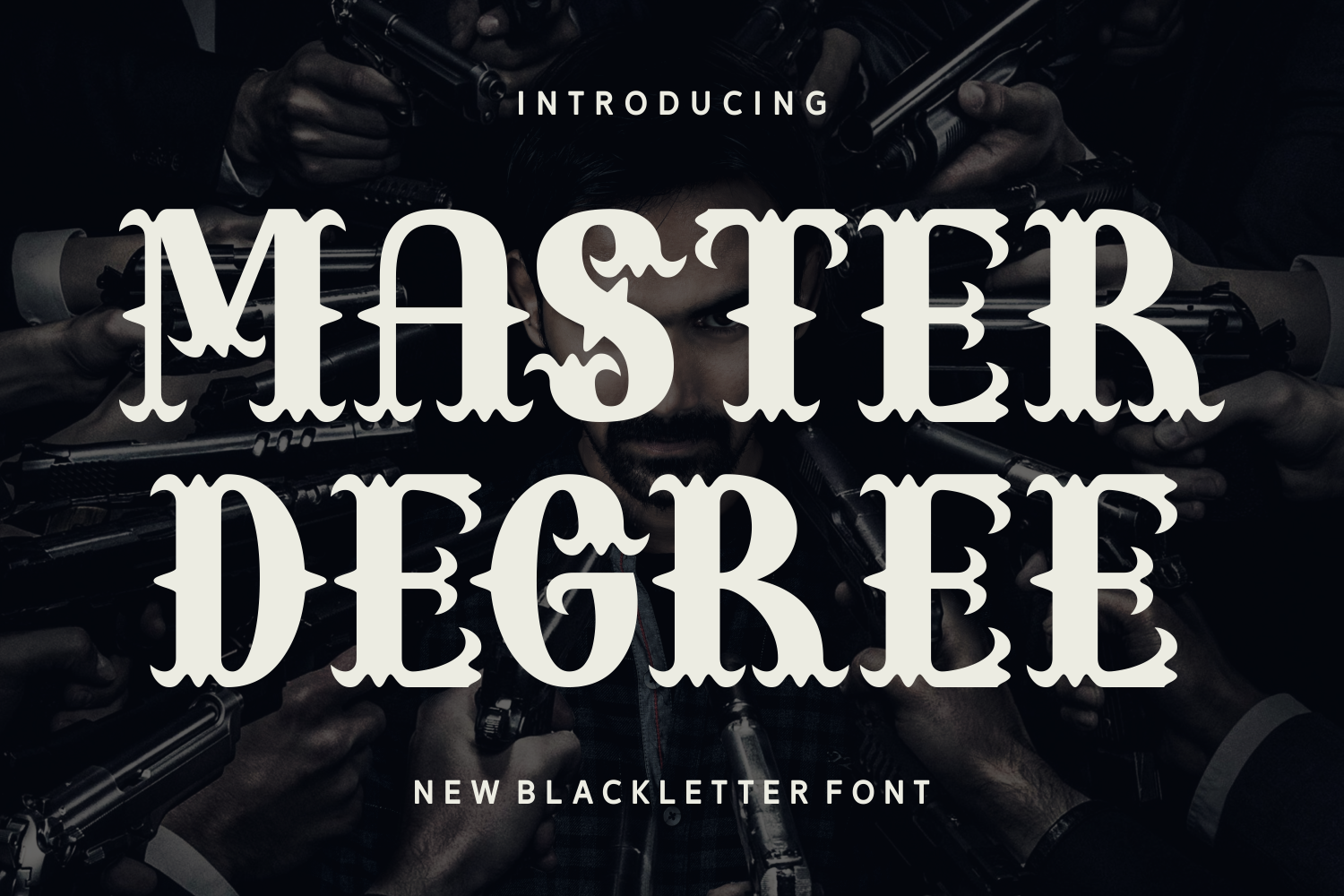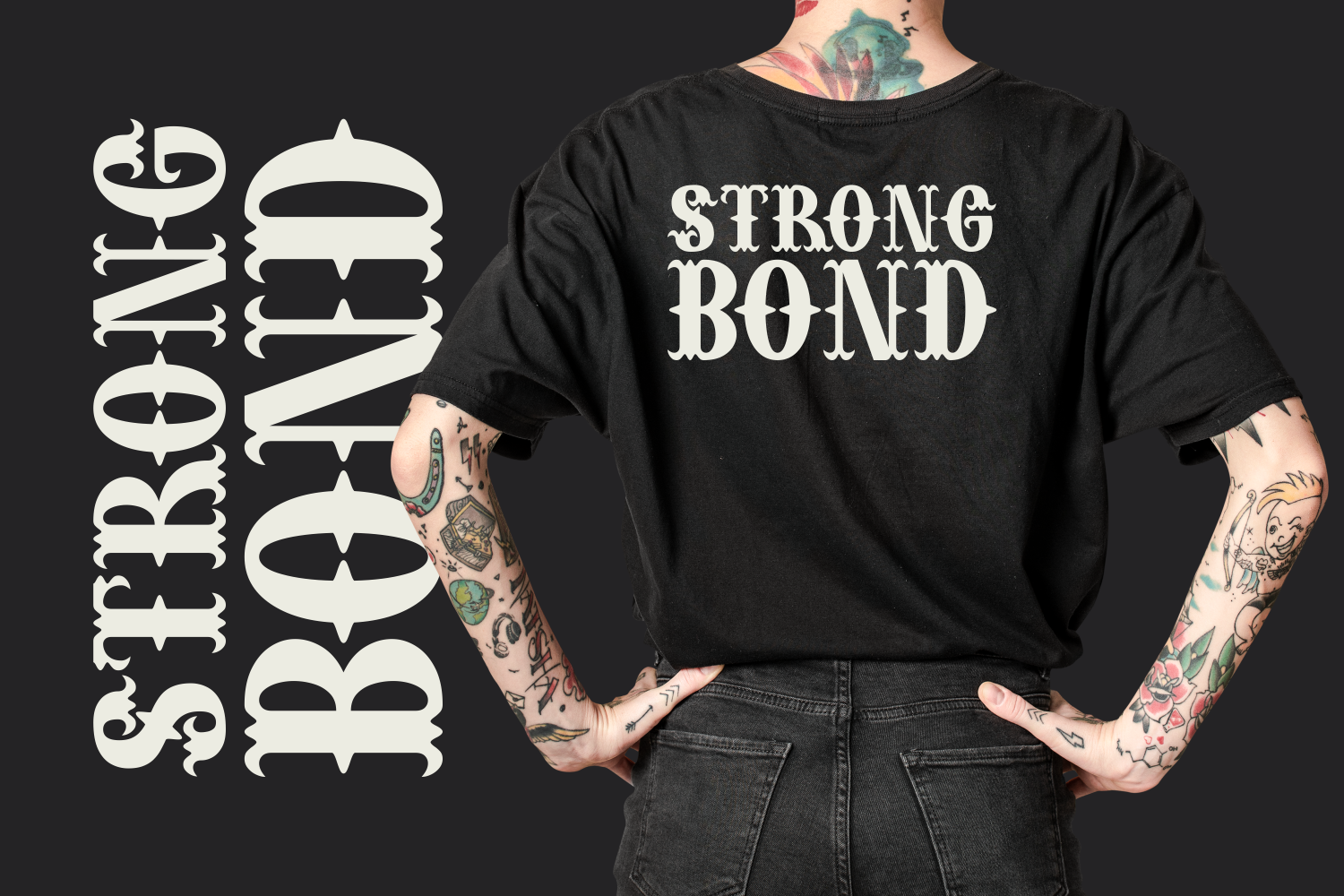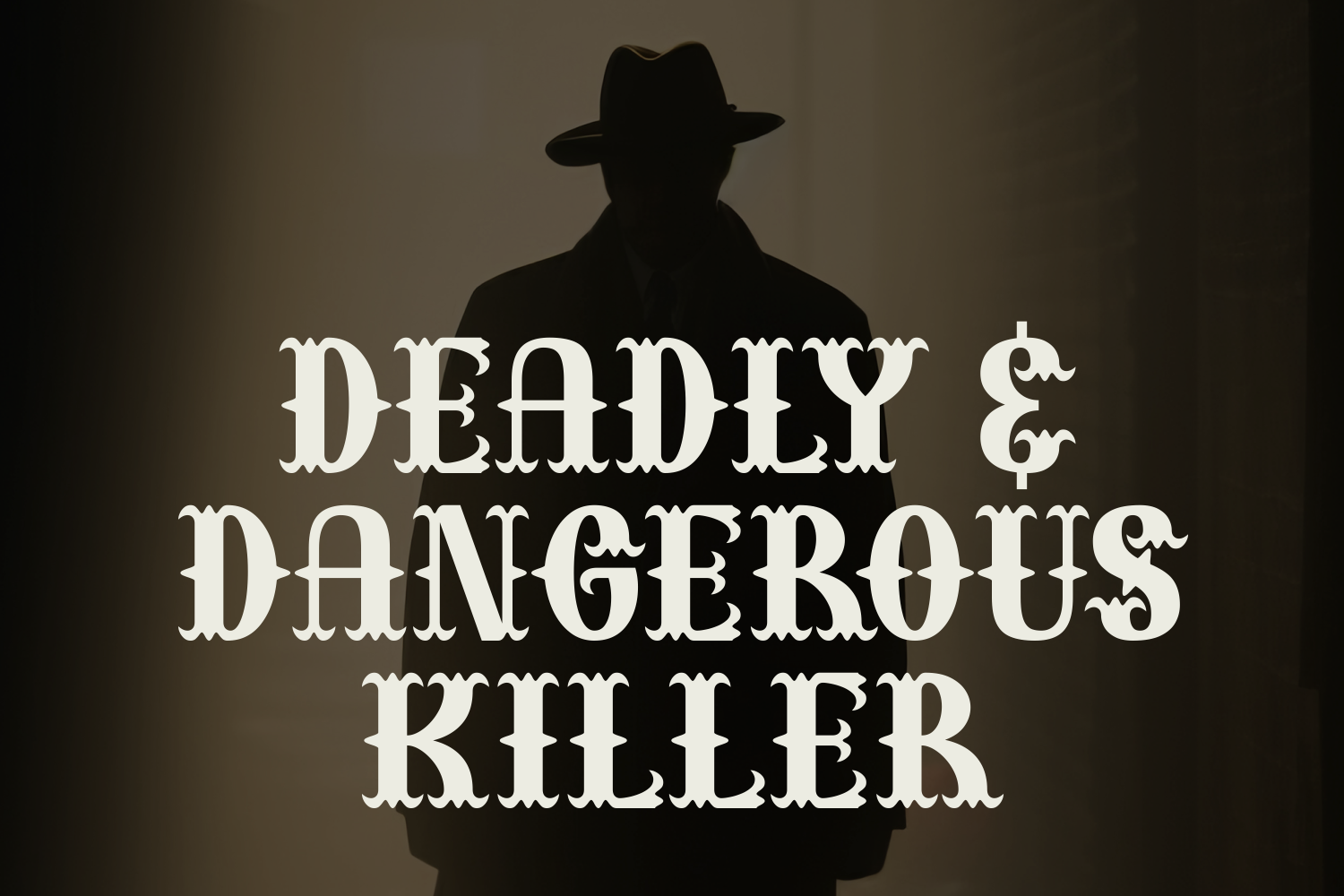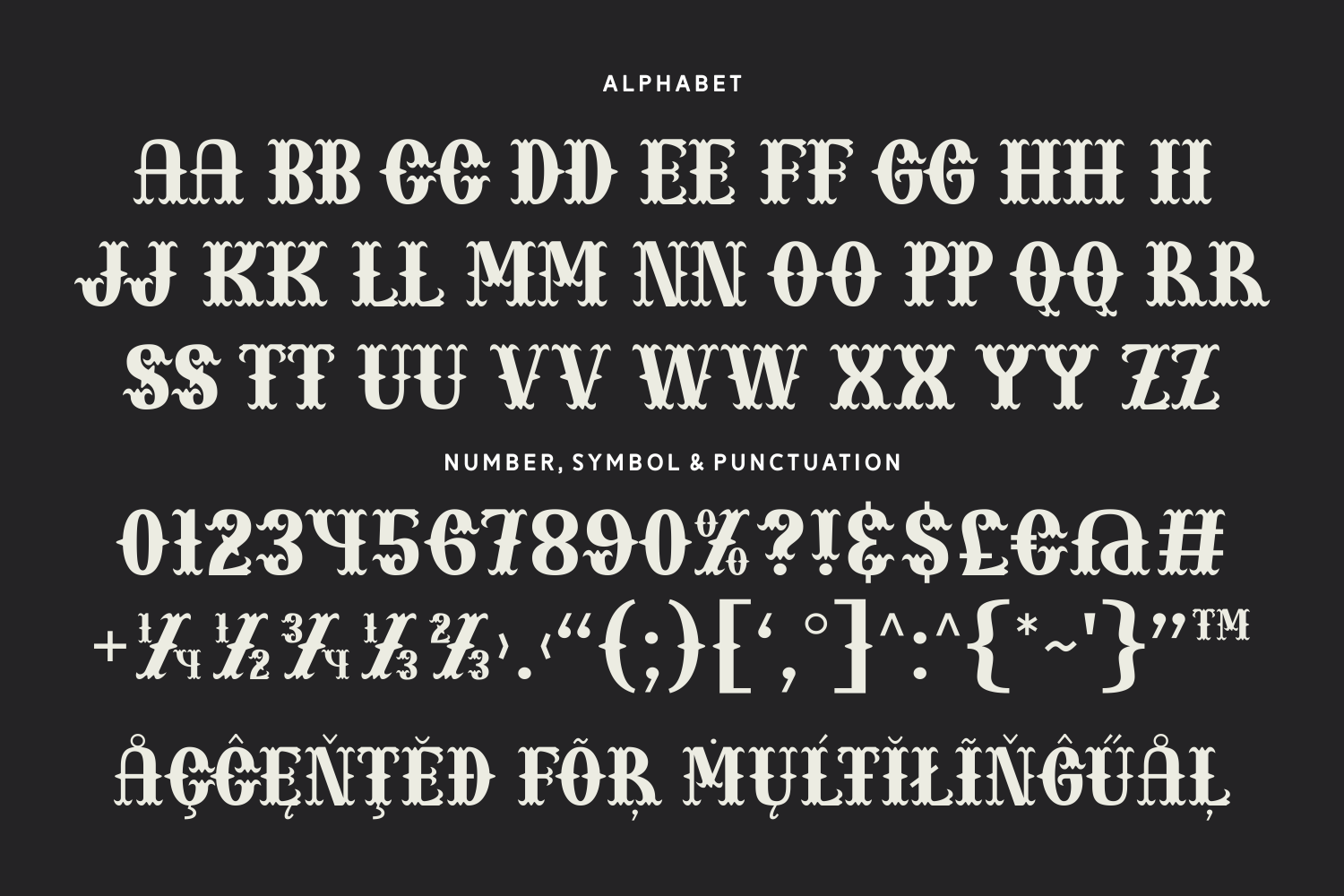
Master Degree
Master Degree is a bold blackletter font with dramatic decorative accents. Perfect for tattoo designs, gothic apparel branding, and strong typographic statements.